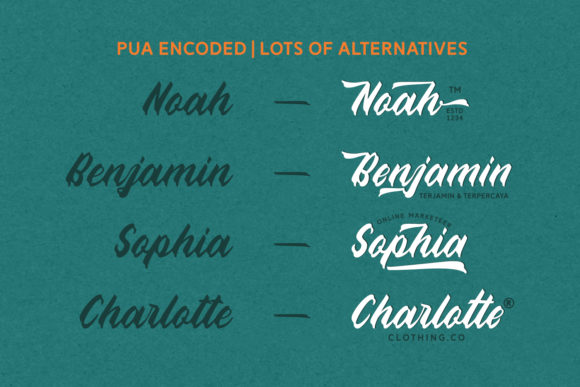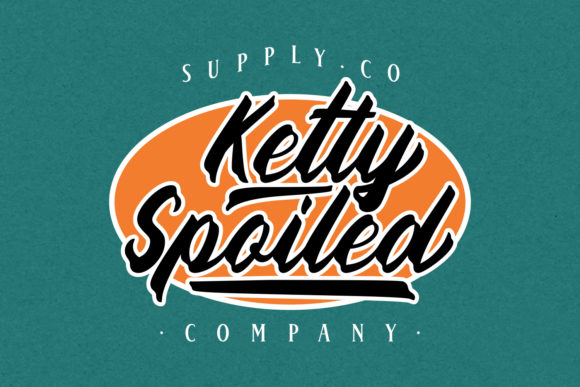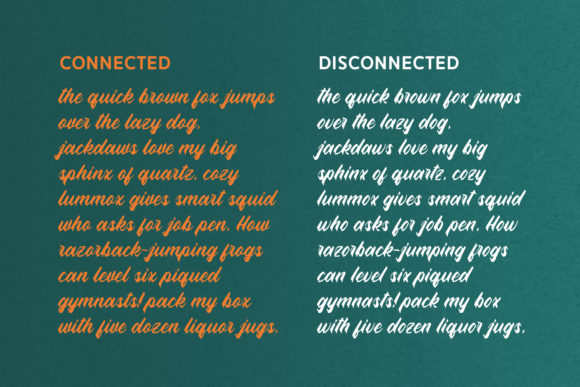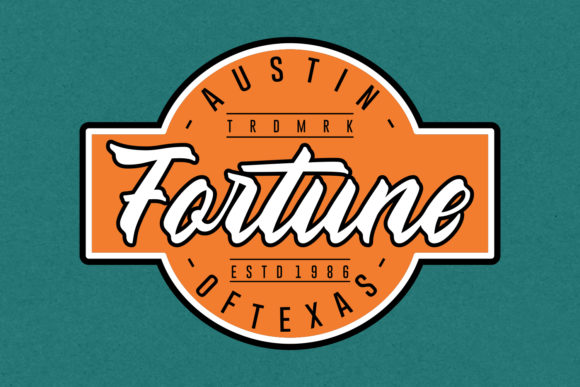
Western Culture Font
About Western Culture Font
The Western Culture is a unique font. It has a bold and striking look which can be used to make any design stand out! It includes amazing charters in several styles that can be used to create unique designs, every time you use it.